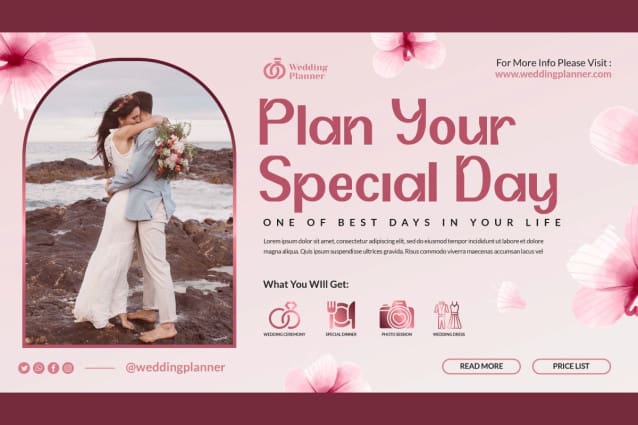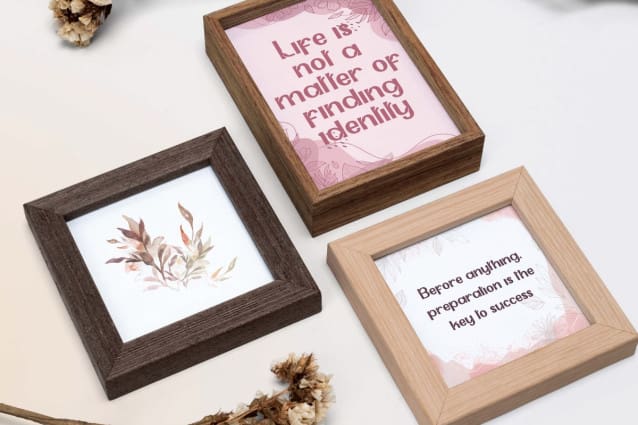
Aurastic Display Font
Aurastic Display Font is a unique sans serif display font which looks aesthetic. Each letter has a unique shape so it will easily steal your attention and blend in beautifully. It will be suitable for any industry, such as accessories, boutique, café, entertainment, event or wedding organizer, fashion, florist, handicraft, photography, printing, publishing, skincare, spa salon, writer, and many more!
Aurastic Display Font comes with full set of Uppercase and Lowercase Basic Characters, Number, a large range of Punctuation, and Symbol. It has a stunning characters set, perfectly managed with well spaced and kerning. Aurastic Font will be able to complement for any design (with extended license) including: brand logo, brochure, merchandise, cover, invitation card, label, packaging design, quote, screen print, signage, stationary, sticker, title, website, etc.